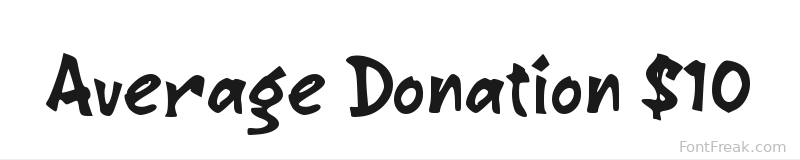
Average Donation $10
About Average Donation $10
The "Average Donation $10" font, crafted by the talented Wahyu Eka Prasetya, is a playful display typeface that combines an informal charm with a modern flair. This font falls into the decorative category, characterized by its unique and expressive handwritten style. The strokes exhibit a medium weight and a slightly irregular baseline, giving it a dynamic and lively appearance. The letters are well-spaced, ensuring legibility while maintaining an artistic touch. The overall aesthetic is casual yet engaging, making it perfect for various creative applications.
Ideal use cases for the Average Donation $10 font include fundraising event posters, community flyers, and social media graphics aimed at promoting charitable causes. Its lively character can also enhance restaurant menus, making them more inviting and approachable. Additionally, this font works well for children’s book covers and birthday party invitations, where a whimsical touch is desired. The versatility of this font appeals to graphic designers, small business owners, and content creators who want to make their projects stand out with a friendly, approachable vibe.
What makes the Average Donation $10 font particularly noteworthy is its ability to convey a sense of community and generosity. With its cheerful design, it invites participation and encourages donations, making it especially fitting for non-profit organizations and fundraising campaigns. The Average Donation $10 font free download allows users to incorporate this engaging typeface into their projects without any cost, enabling them to enhance their visual communication. Overall, this font stands out for its unique balance of playfulness and professionalism, making it a valuable asset for any creative endeavor.